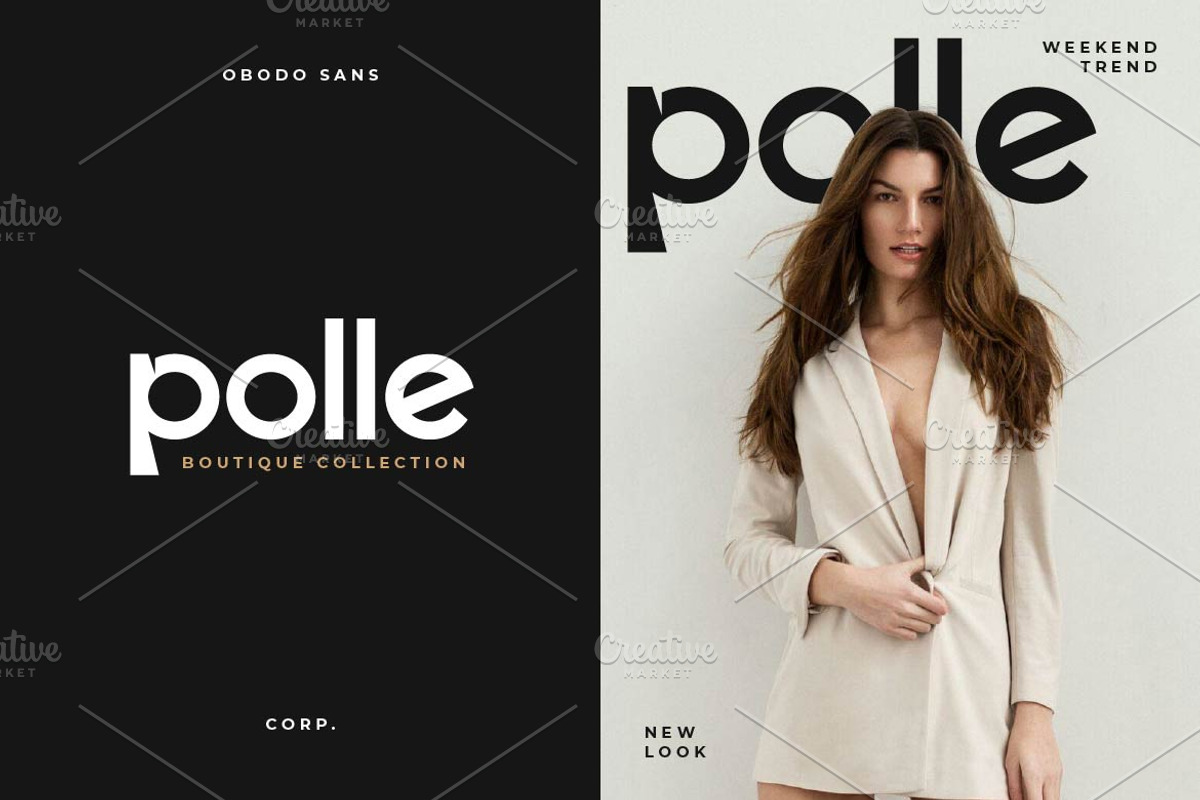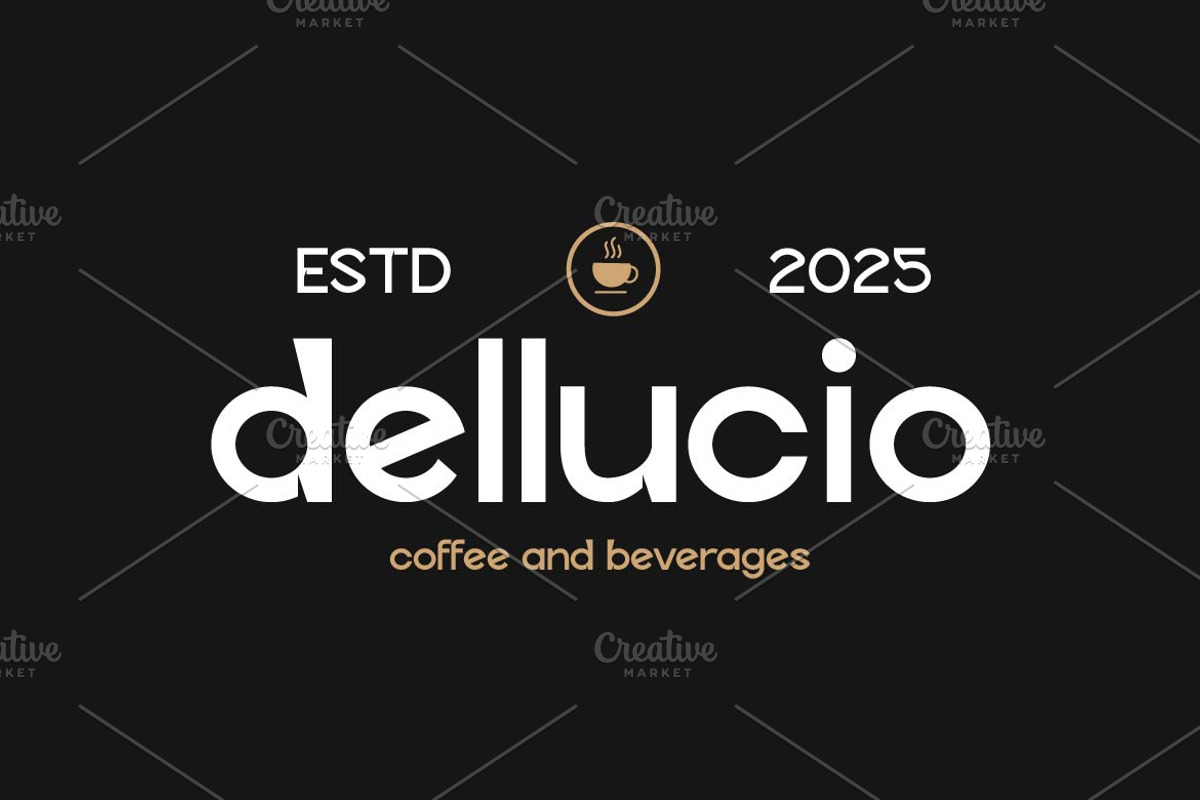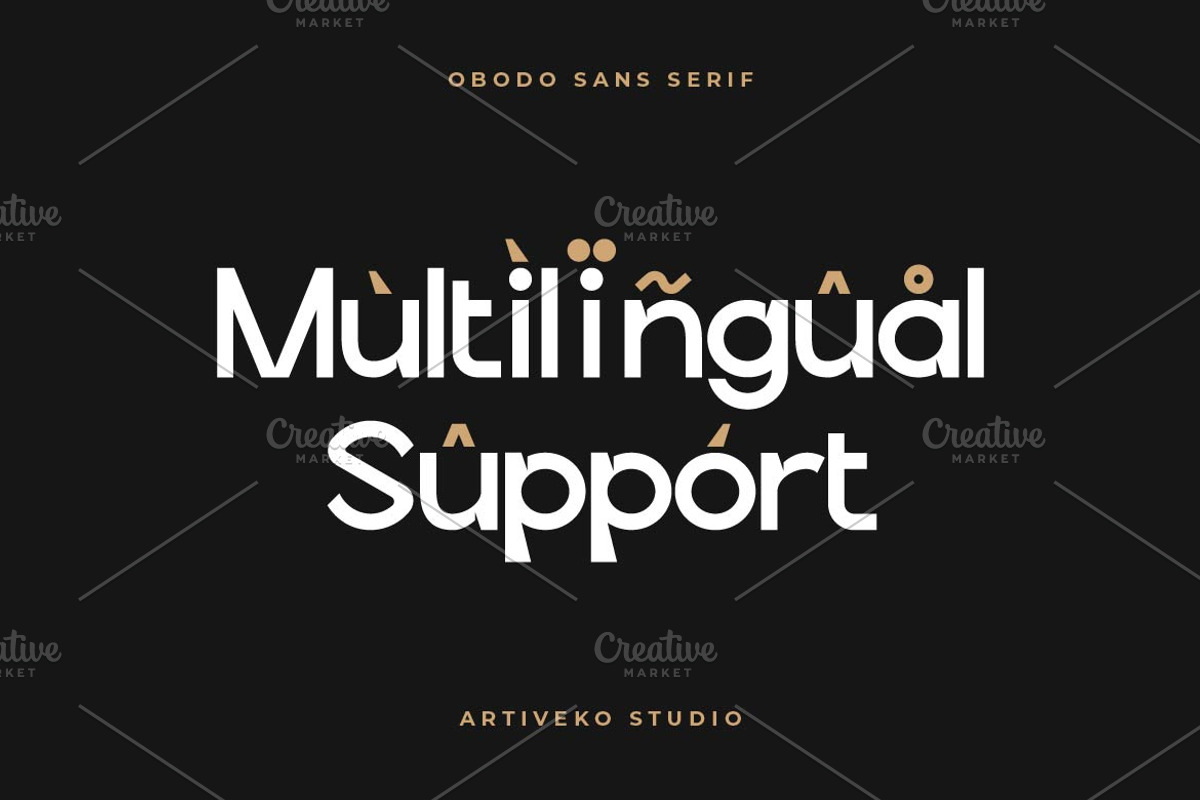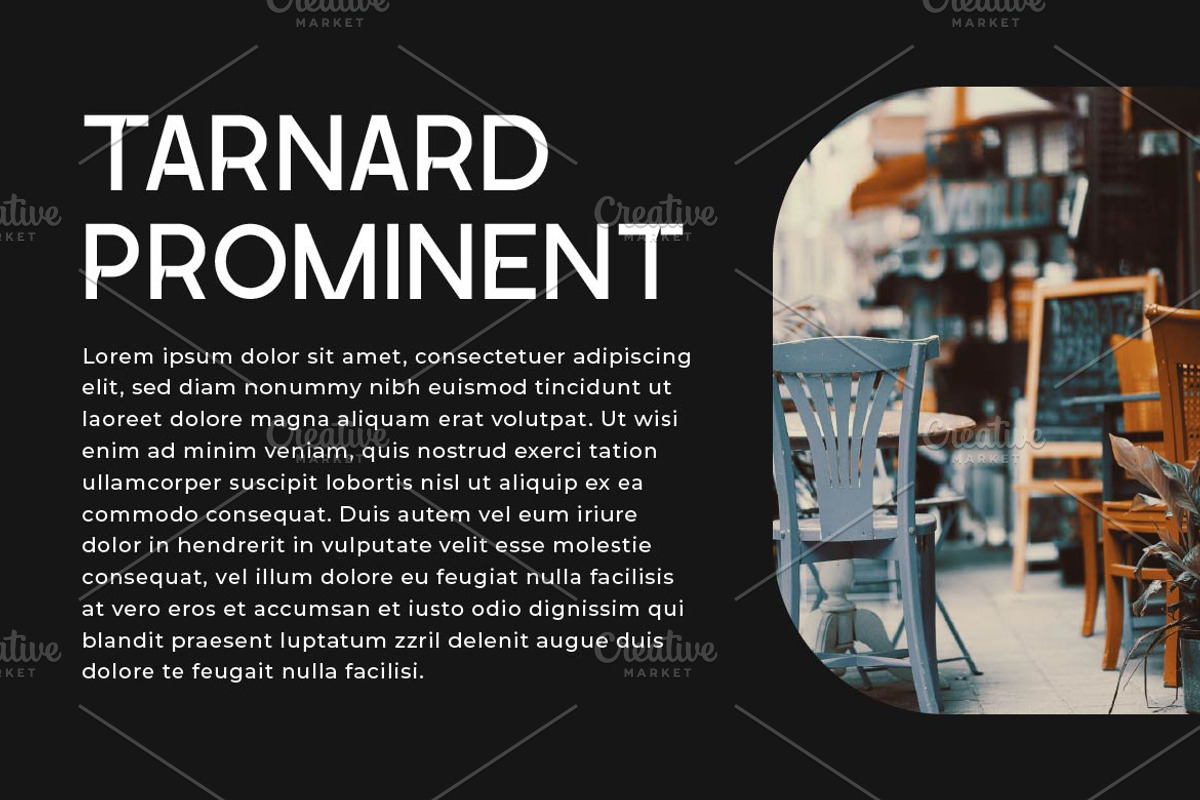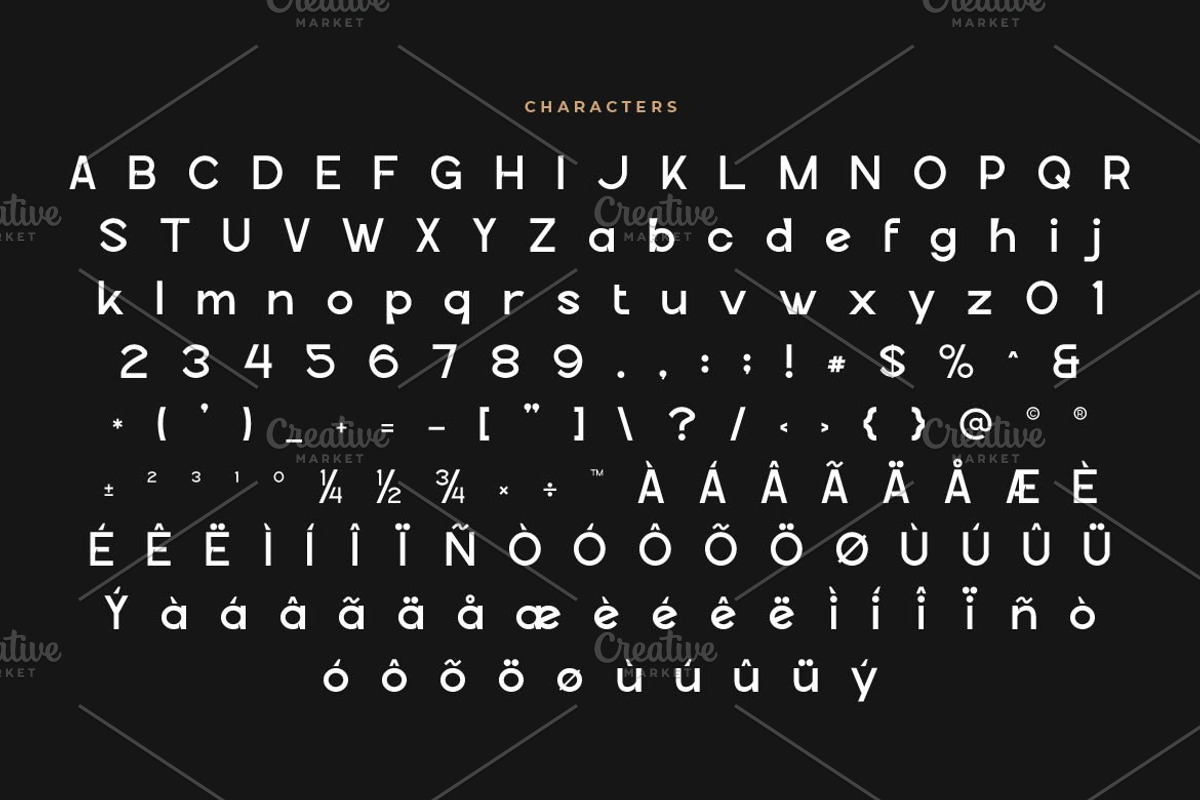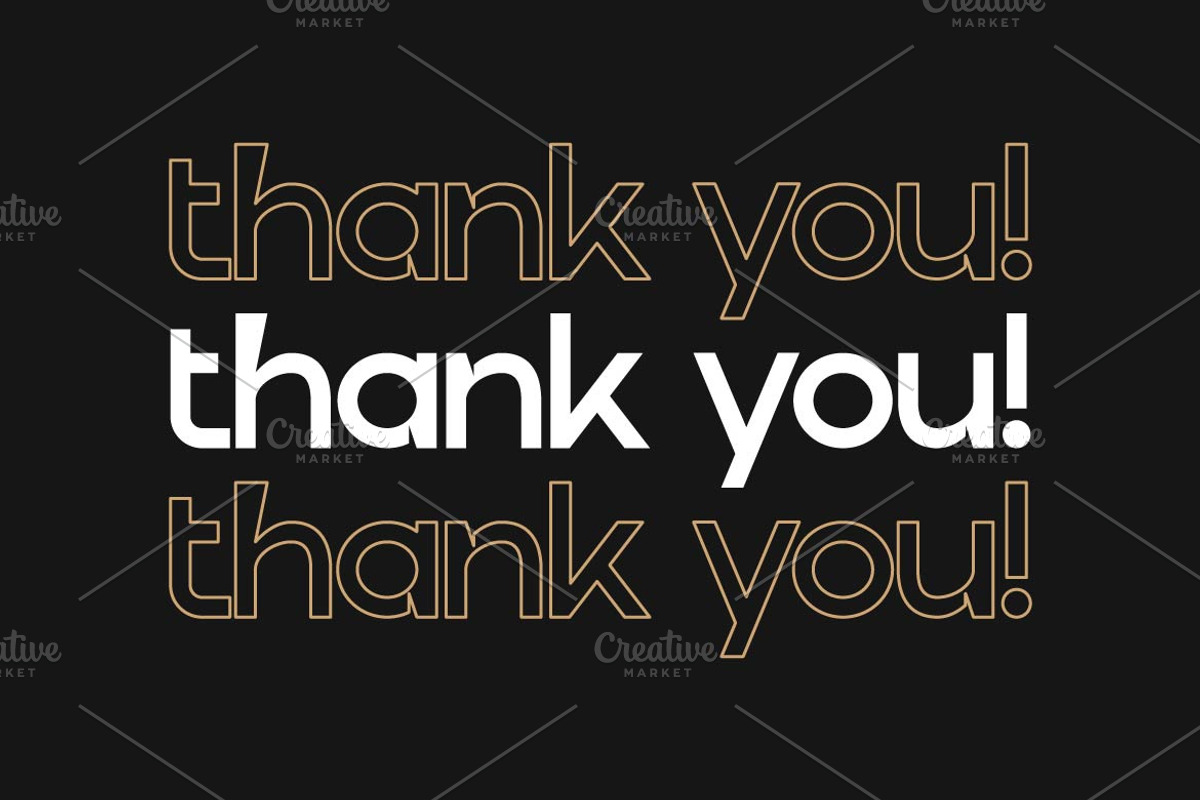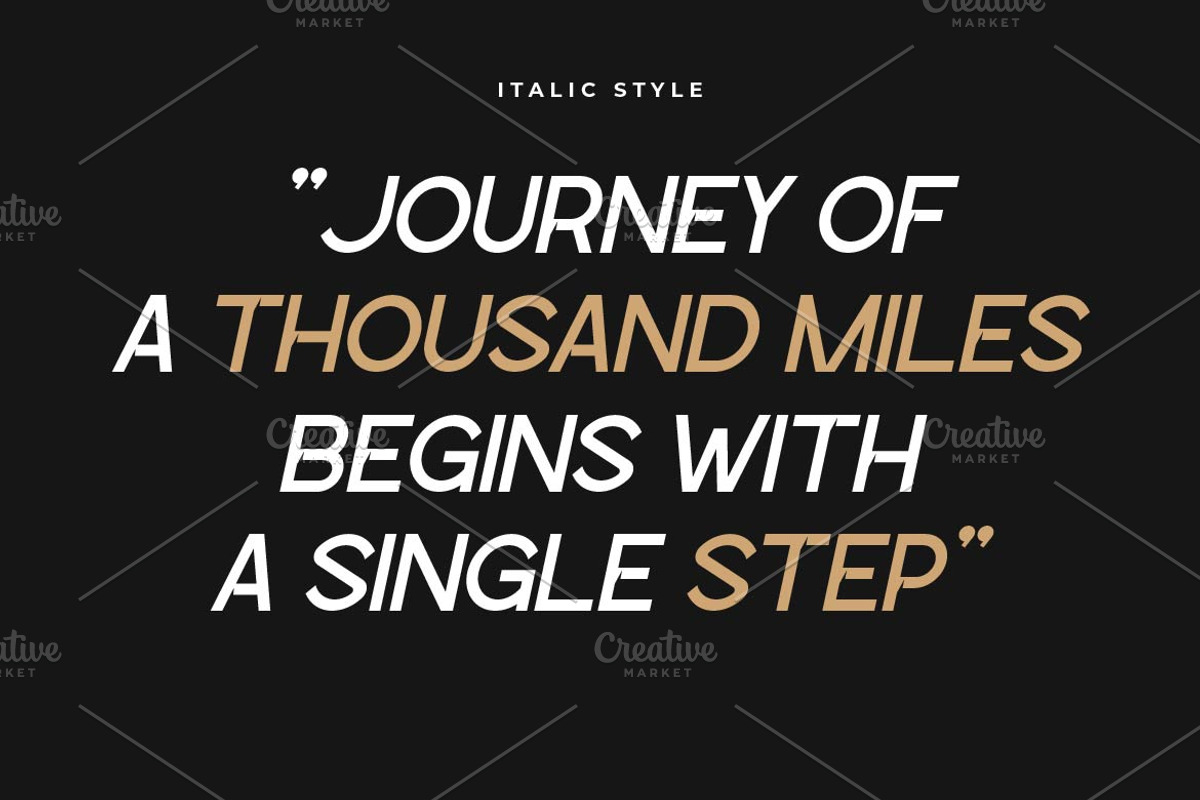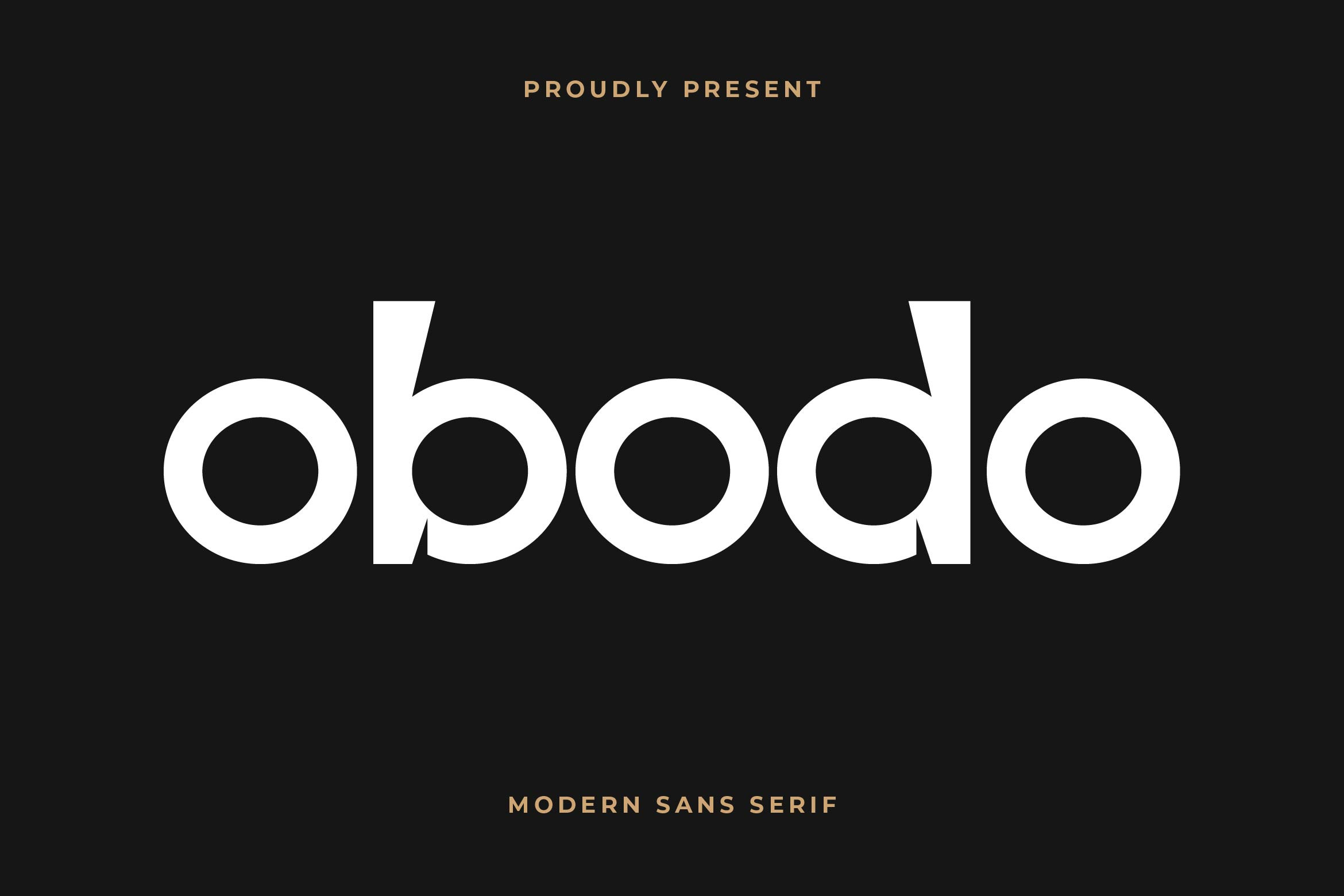
Obodo Creative Logo Font
Obodo is a modern sans serif font that combines clean lines with a bold, confident personality. Designed to make a strong visual impact, Obodo is perfect for branding, headlines, posters, websites, and social media graphics. Its minimalist structure ensures clarity, while its geometric touches add a sense of modern professionalism. This fonts are great for product logo,wedding card logo, clothing brand logo, Vintage design and much more.